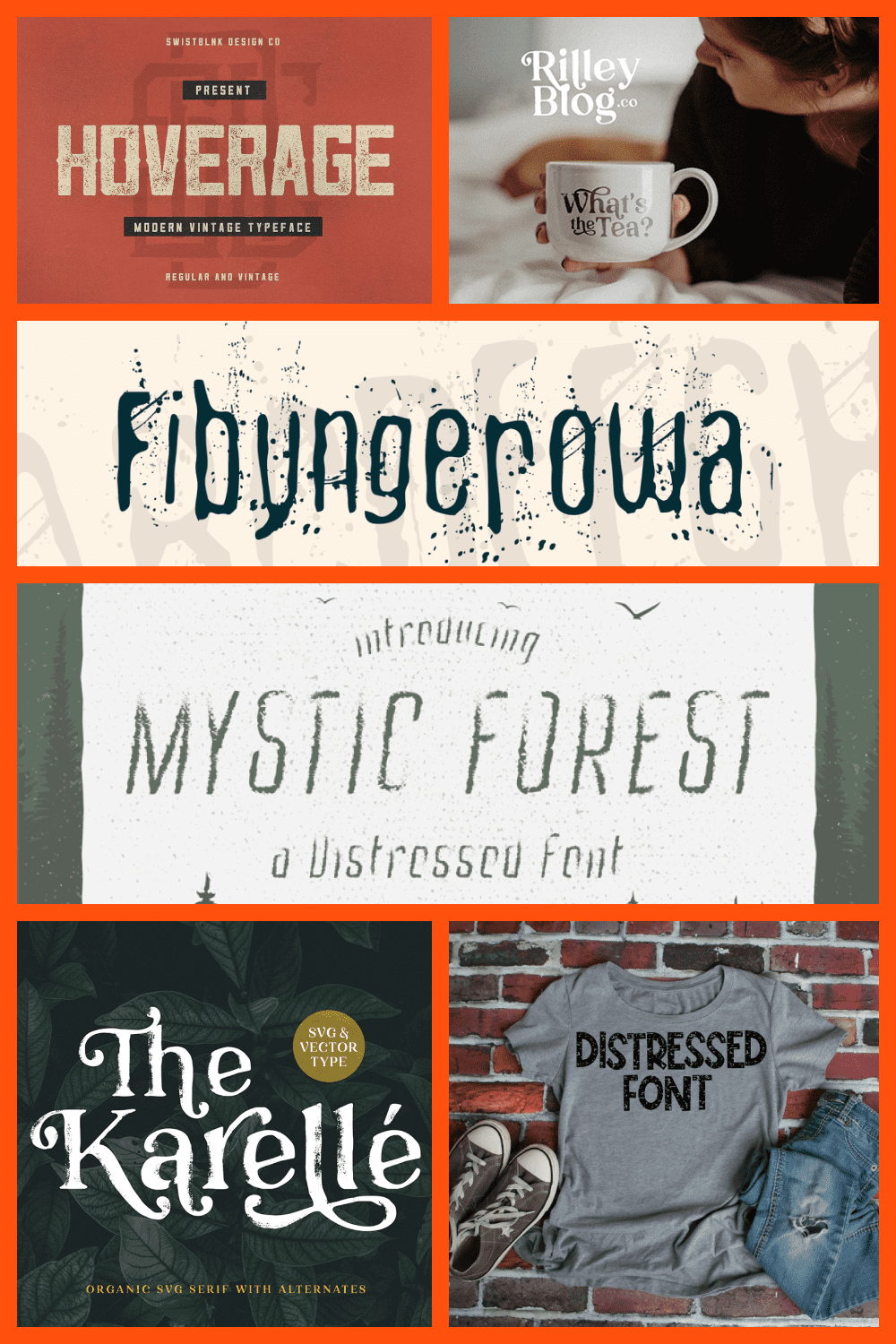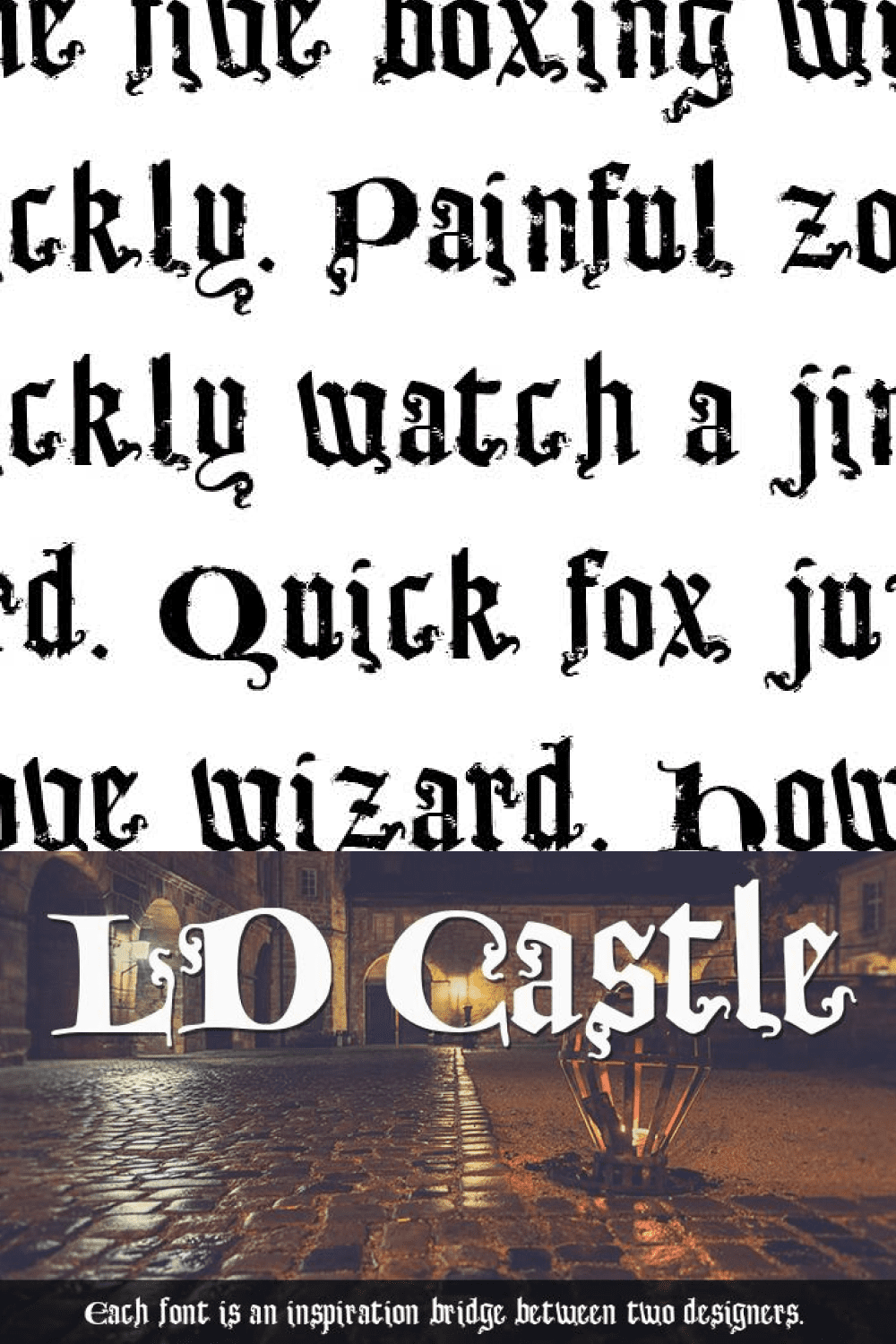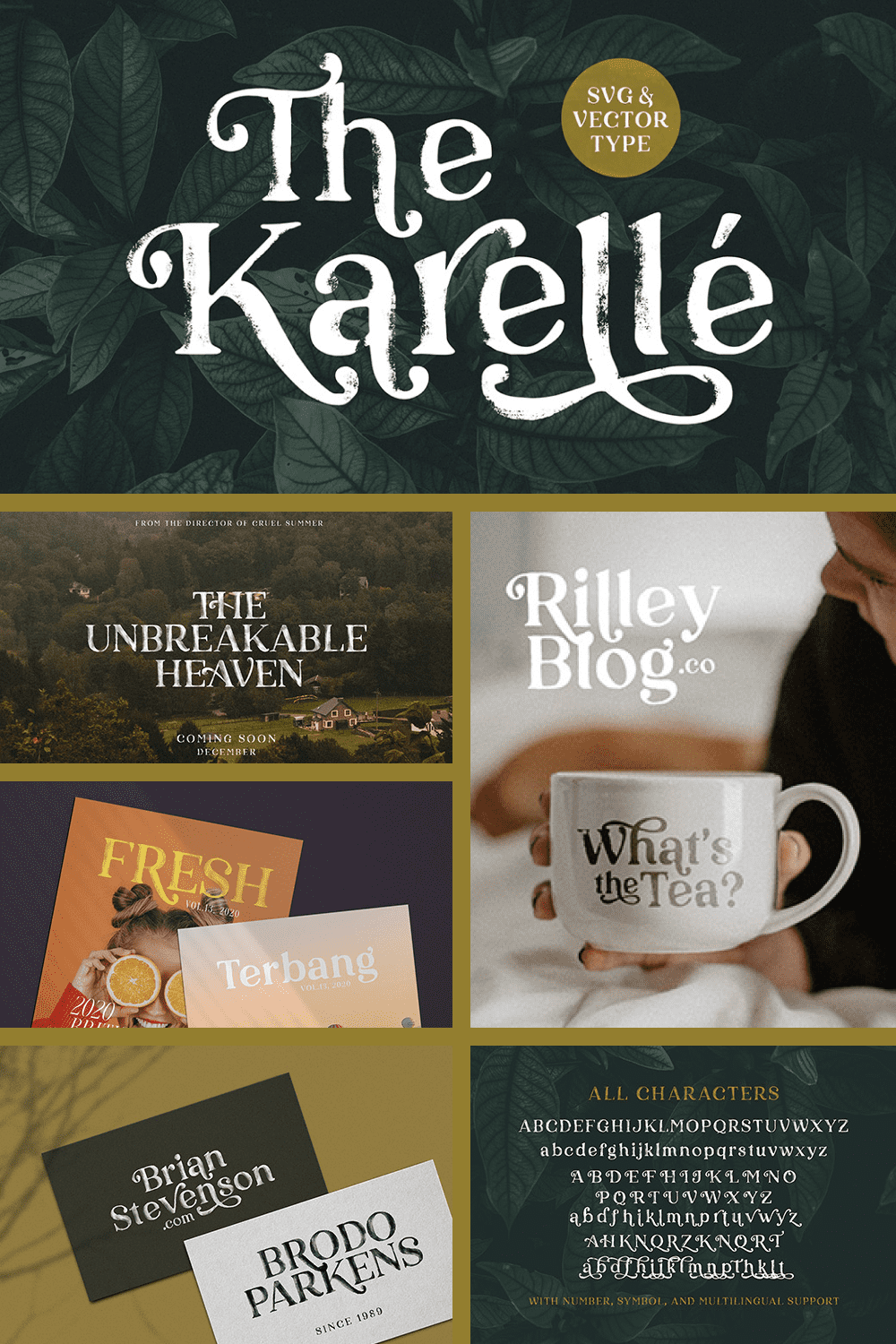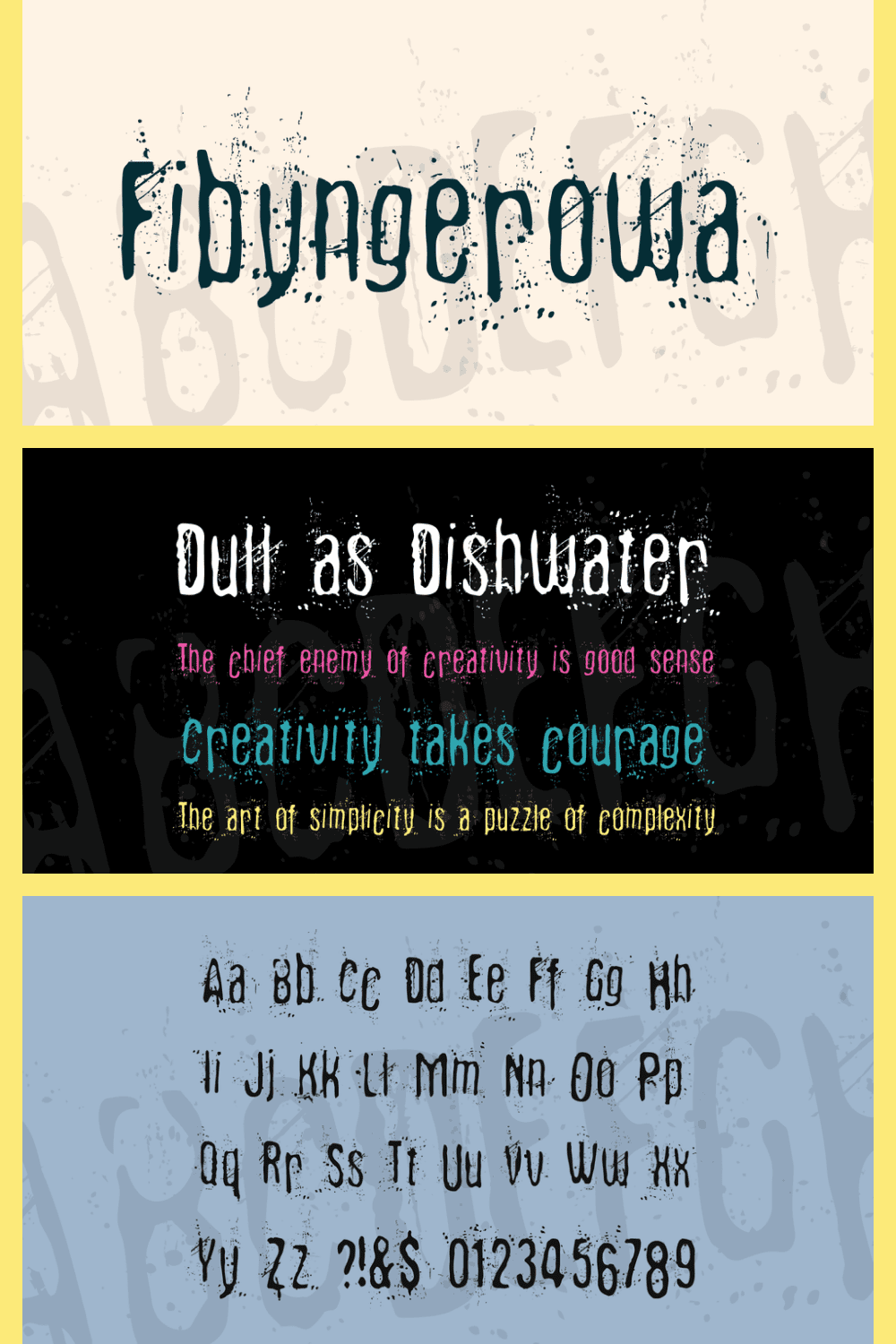
10+ Best Distressed Font in 2021: Free and Premium Fonts
Distressed Font. It’s amazing how quickly and efficiently digital technologies are developing in our time. The needs of humanity are now as unpredictable and diverse as possible. Ideal graphic fonts are being replaced by just such “imperfect” Distressed Fonts, which can more correctly and accurately convey the roughness and imperfections of human writing. Obviously, we do not always need an exemplary picture. Sometimes, it is much more appropriate to apply a “reality effect” and create the appearance of a more truthful display of things. By the way, this trend is relevant not only in fonts, but also in many other areas of life. Peace for naturalness and truthfulness. This is what such Distressed Fonts are shouting about.
The fonts that we have collected on this page have quite a few different aspects. Some emphasize out-of-line, others show irregular letter contours, and others make roughness and unevenness of the surface. All this in one place especially for you.
Best Premium Distressed Font
Best Free Distressed Font